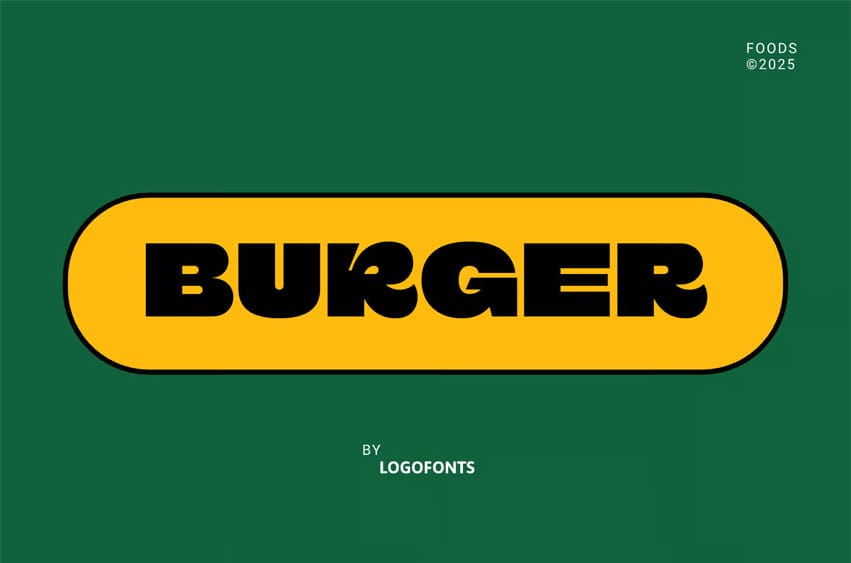
Burger Font is a bold and delicious display font crafted to capture the essence of food, cafe, and restaurant branding. Its chunky and playful letterforms make it perfect for burger shops, bakeries, coffee logos, pizza menus, or candy packaging.
Every curve of Burger feels tasty and inviting — ideal for designers who want to add flavor and fun to their brand identity.
This font stands out on menus, kitchen labels, cafe posters, and food product packaging, giving your design a bold and mouthwatering personality.